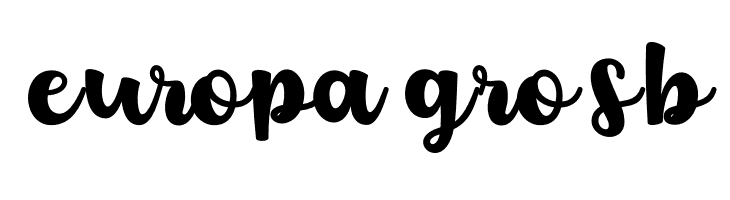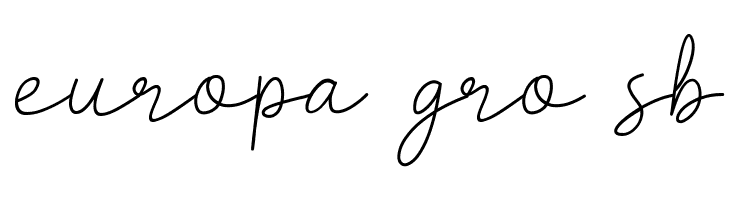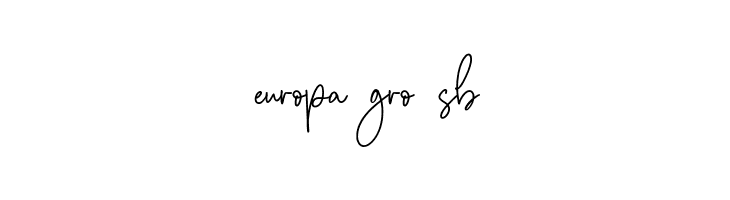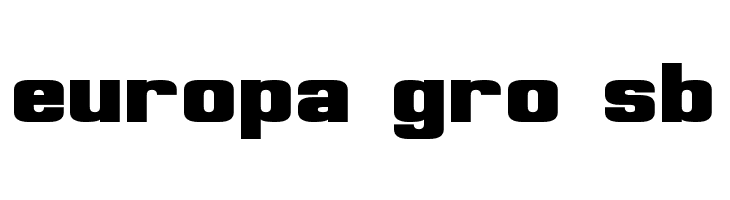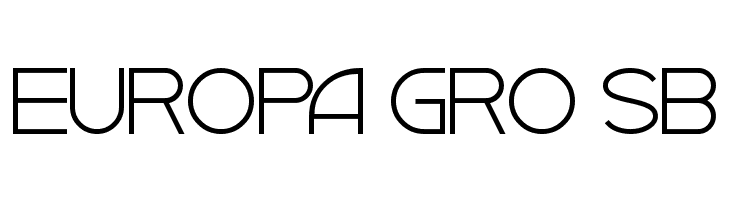
A flowing, elegant script font with a handwritten appearance.
A futuristic, geometric font with clean lines and a modern appearance.
A bold, geometric font with a segmented, filled design.
A bold, geometric font with a three-dimensional, modern design.
A playful handwritten font with bold, rounded strokes and a casual feel.
A bold, jagged, and graffiti-like font with sharp angles and dynamic strokes.
A bold, distressed font with a rugged, vintage aesthetic.
A bold, distressed font with a vintage, grunge aesthetic.
A playful, casual handwritten font with fluid strokes and a friendly appearance.
A rugged, stitched-style font with a handcrafted, edgy appearance.
A playful, bold font with rounded strokes and a friendly appearance.
A playful, bold font with a shadow effect and hand-drawn style.
A lively and dynamic handwritten font with playful, fluid strokes.
A bold, dynamic font with a playful, energetic style.
A bold, outlined font with a dynamic, comic-like style.
A bold, dynamic font with angular, energetic letterforms ideal for playful designs.
A bold, playful font with a hollow interior and dynamic style.
A geometric, rune-like font with angular lines and diamond accents.
A bold, playful handwritten font with rounded characters.
A bold, jagged script font with sharp, dynamic edges.
A bold, edgy font with sharp, jagged edges and a dynamic, cursive-like style.
A bold, geometric font with sharp, angular edges and a futuristic feel.
A bold, hand-painted style font with an expressive and artistic appearance.
A flowing, cursive font with elegant loops and a sophisticated style.
A bold, playful font with rounded edges and a friendly appearance.
A bold, distressed font with a rugged, grunge-like appearance.
A casual and elegant handwritten font with fluid, connected letterforms.
A dynamic and expressive handwritten font with fluid, cursive letterforms.
A futuristic, geometric font with rounded edges and cut-out sections.
A futuristic, geometric font with rounded edges and a stencil-like design.